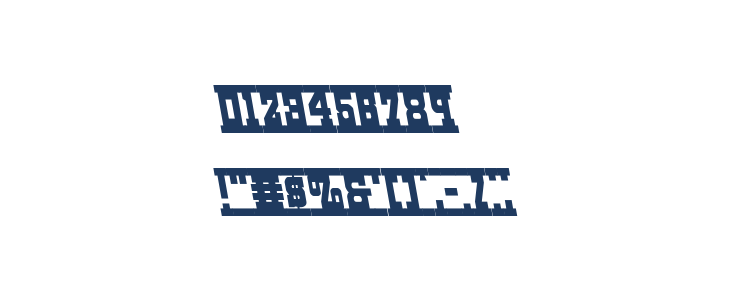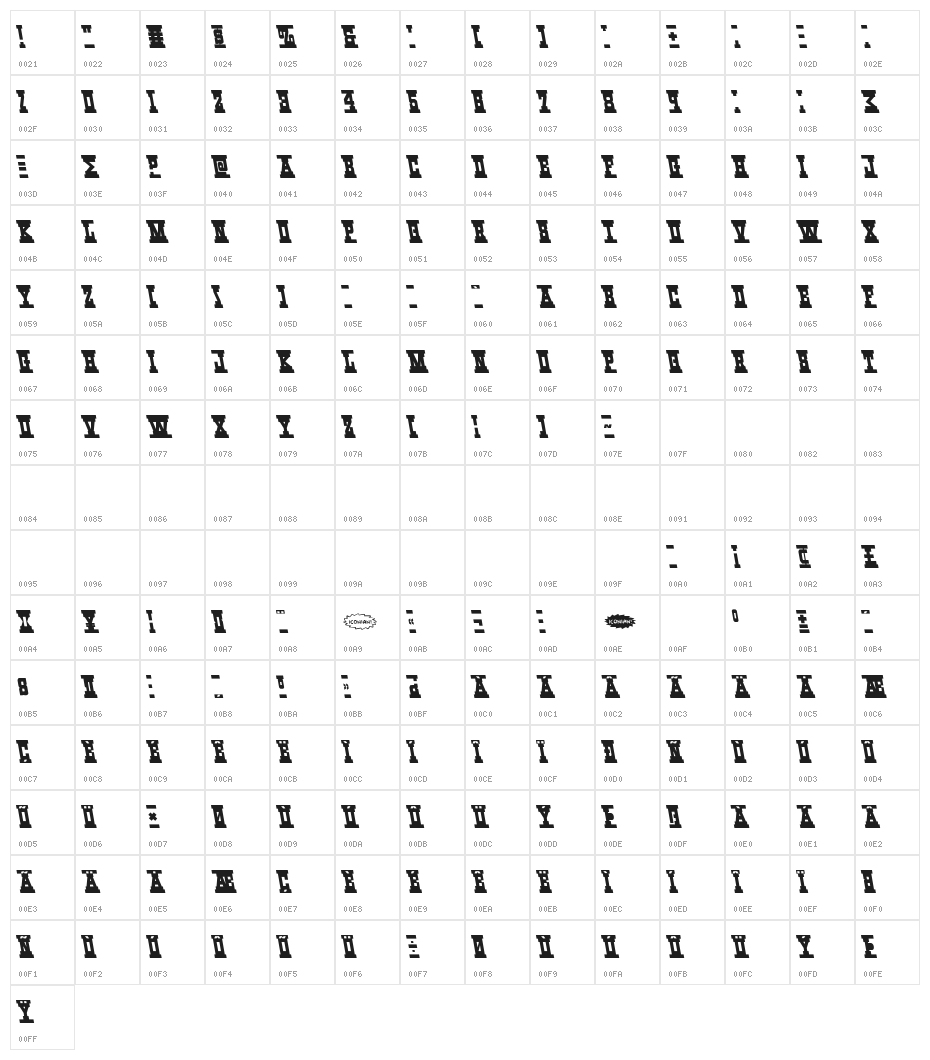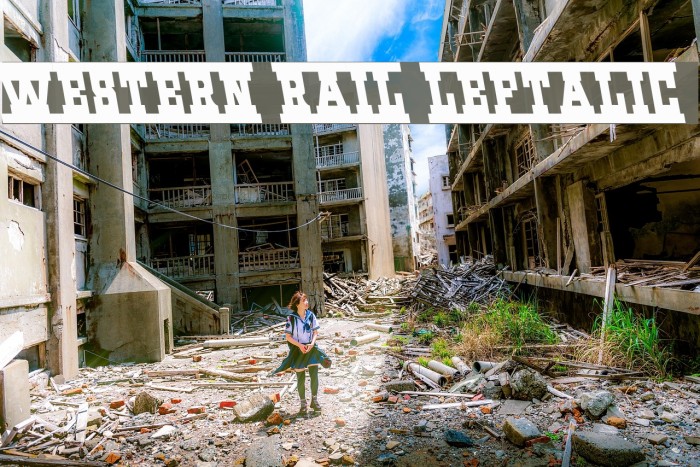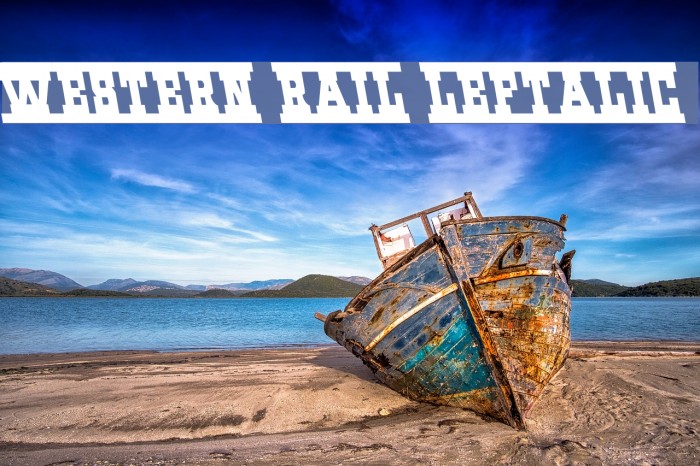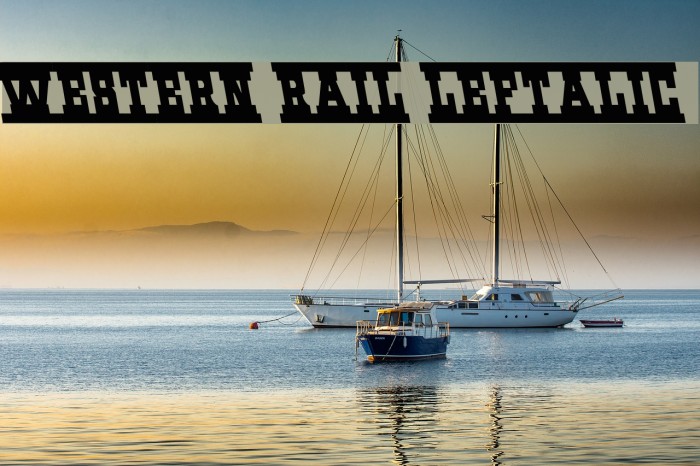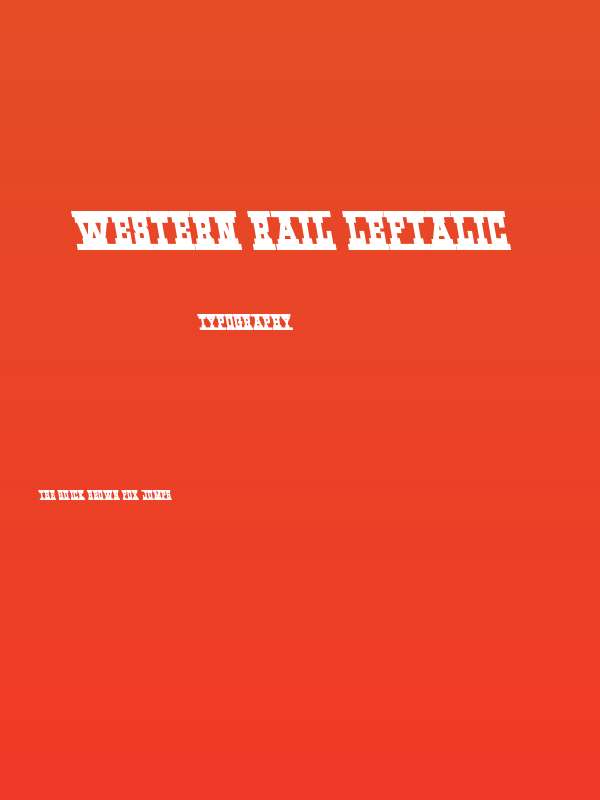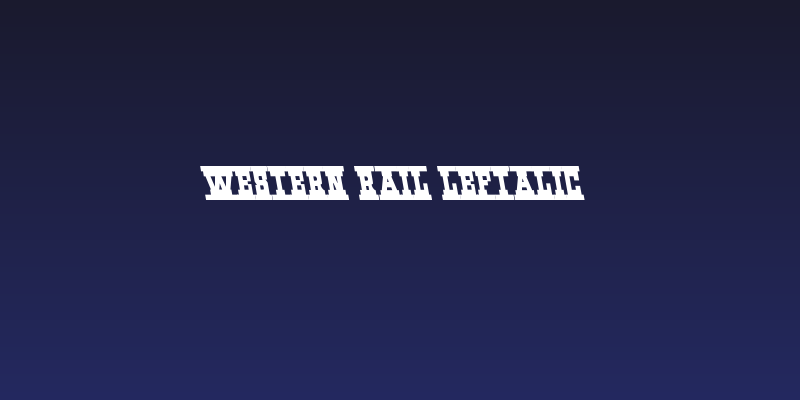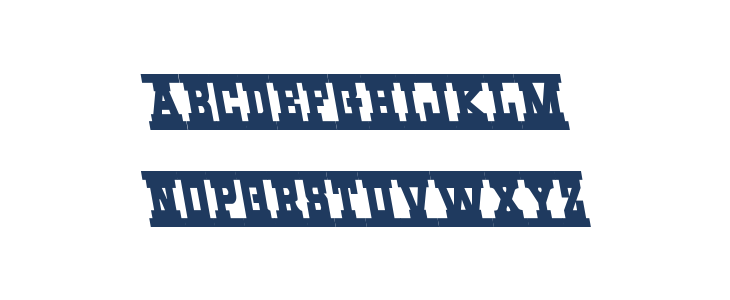
Western Rail Leftalic Font
Western Rail Leftalic Description
This font features a bold, decorative style with a distinctly Western theme. The characters are heavily stylized with thick, blocky serifs and a shadowed effect that gives a sense of depth and dimension. The design is reminiscent of old railroad signage or Wild West posters, with a rugged and adventurous feel. Each letter is crafted with attention to detail, incorporating unique cutouts and angles that enhance its vintage appeal. The numbers and special characters maintain the same bold and decorative aesthetic, ensuring consistency across all elements.
| Proposed Projects | Ideal for use in themed posters, signage, branding for Western or vintage-inspired events, and any design project seeking a bold, adventurous aesthetic. |